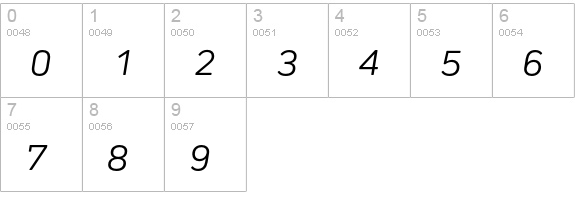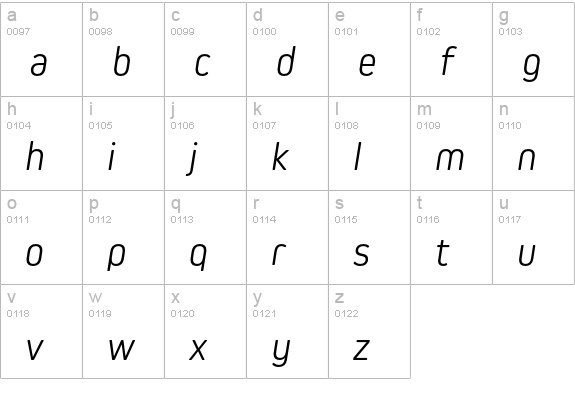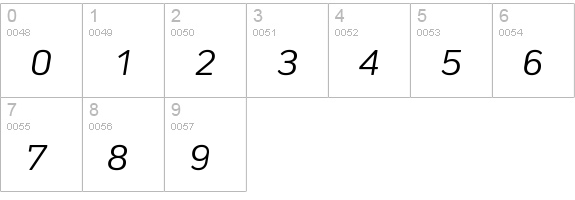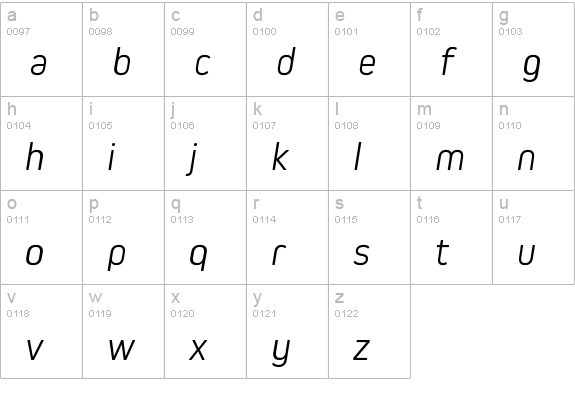
Kiro Light Italic Font Details
Kiro Light Italic is a refined, elegant, italic variant in the Kiro typeface family \xE2\x80\x94 well suited to elegant body text, refined sub-headings, and luxury branding.
Introducing Kiro Light Italic font - a modern and elegant typeface perfect for adding a touch of sophistication to your design projects. This sleek and stylish font strikes the perfect balance between professionalism and creativity, making it ideal for a wide range of applications. With its delicate and refined curves, Kiro Light Italic exudes a sense of grace and elegance that is sure to elevate any design project. Whether you're working on branding materials, invitations, or website design, this font will bring a touch of sophistication to your work. Best of all, Kiro Light Italic is available for free download at FontsMarket.com. So you can easily access this beautiful font and incorporate it into your projects without any hassle. Don't miss out on the opportunity to enhance your designs with the timeless charm of Kiro Light Italic font.